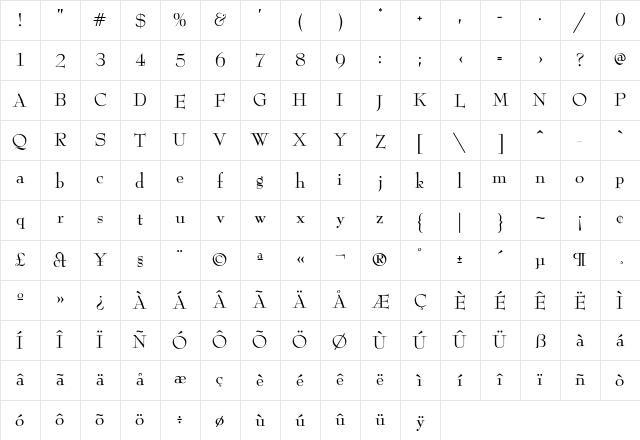
Lead-Normal Regular
Design Context for Lead-Normal
Lead-Normal is a composed and adaptable typeface that performs quietly and consistently across a wide range of design contexts.
Pro Tip: Use Lead-Normal in both headline and body roles to test its range before committing to a single application.